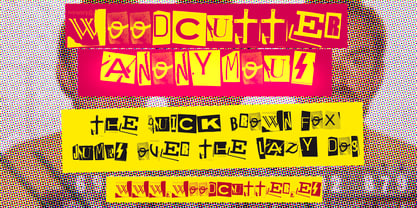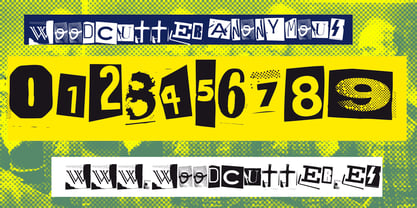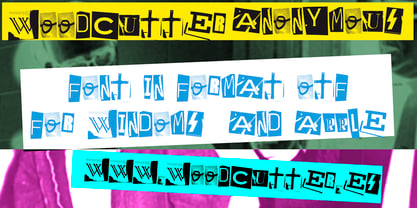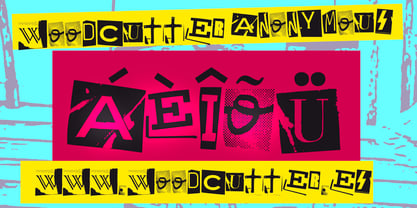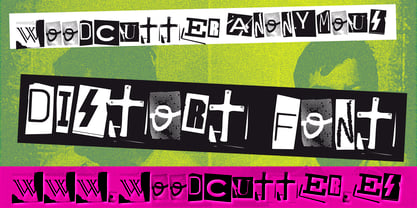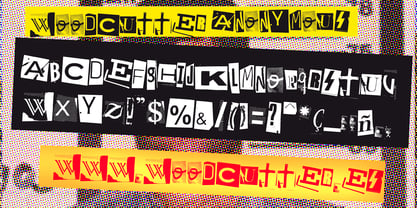
Woodcutter Anonymous
by Woodcutter
The Woodcutter Anonymous Font Family was designed by Jordi Manero and published by Woodcutter. Woodcutter Anonymous contains 1 styles. More about this family
Woodcutter Anonymous is an uppercase typeface family with accents, inspired by the iconic ransom or anonymous letters from suspense films, where each letter appears to be cut out from different newspapers or magazines to avoid recognition. The font offers a chaotic, intriguing, and provocative combination of styles, sizes, and shapes, mimicking the handcrafted effect of manually pasted clippings. Each character has its own unique identity, creating an unpredictable and energetic rhythm—perfect for projects that want to convey mystery, rebellion, or a punk, subversive aesthetic.
The Woodcutter Anonymous font family is ideal for posters, covers, street art, film titles, editorial design, or graphic campaigns that aim to make a visual impact and tell a story with a secretive or conspiratorial tone. It also resonates with the world of zines, DIY culture, and underground media.
This typeface is not just a visual tool, but a bold statement: it breaks the rules, hides in plain sight, and embraces visual chaos to create tension, expression, and a unique design voice. A perfect choice to stand out—without being recognized.